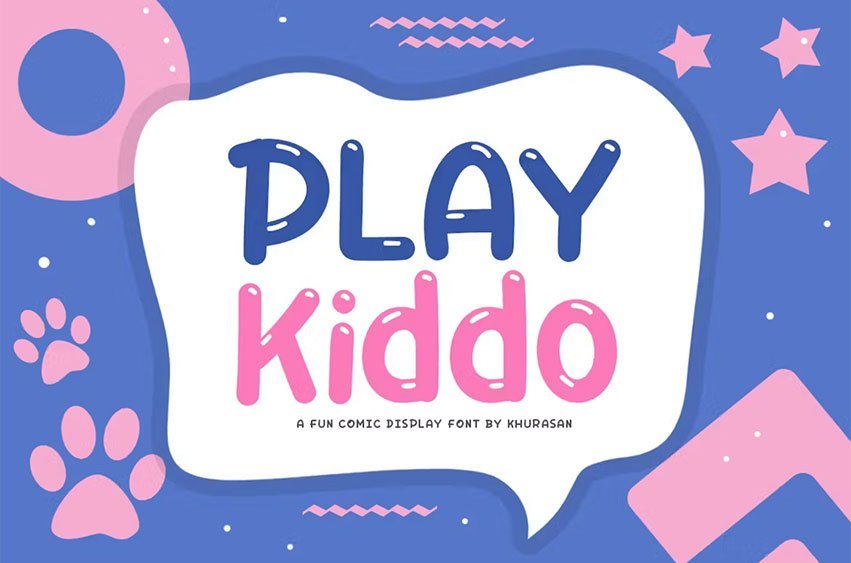
Playkiddo Font is a fun display typeface with a cheerful theme for your fun project. Playkiddo font is suitable for logos, branding, greeting card, poster and any design that you create.